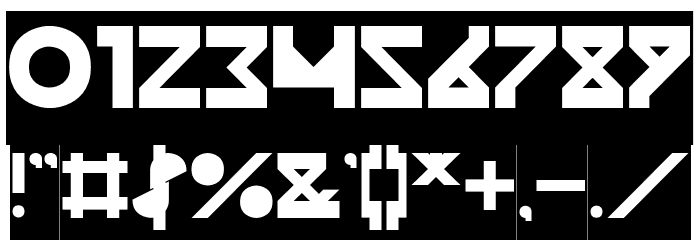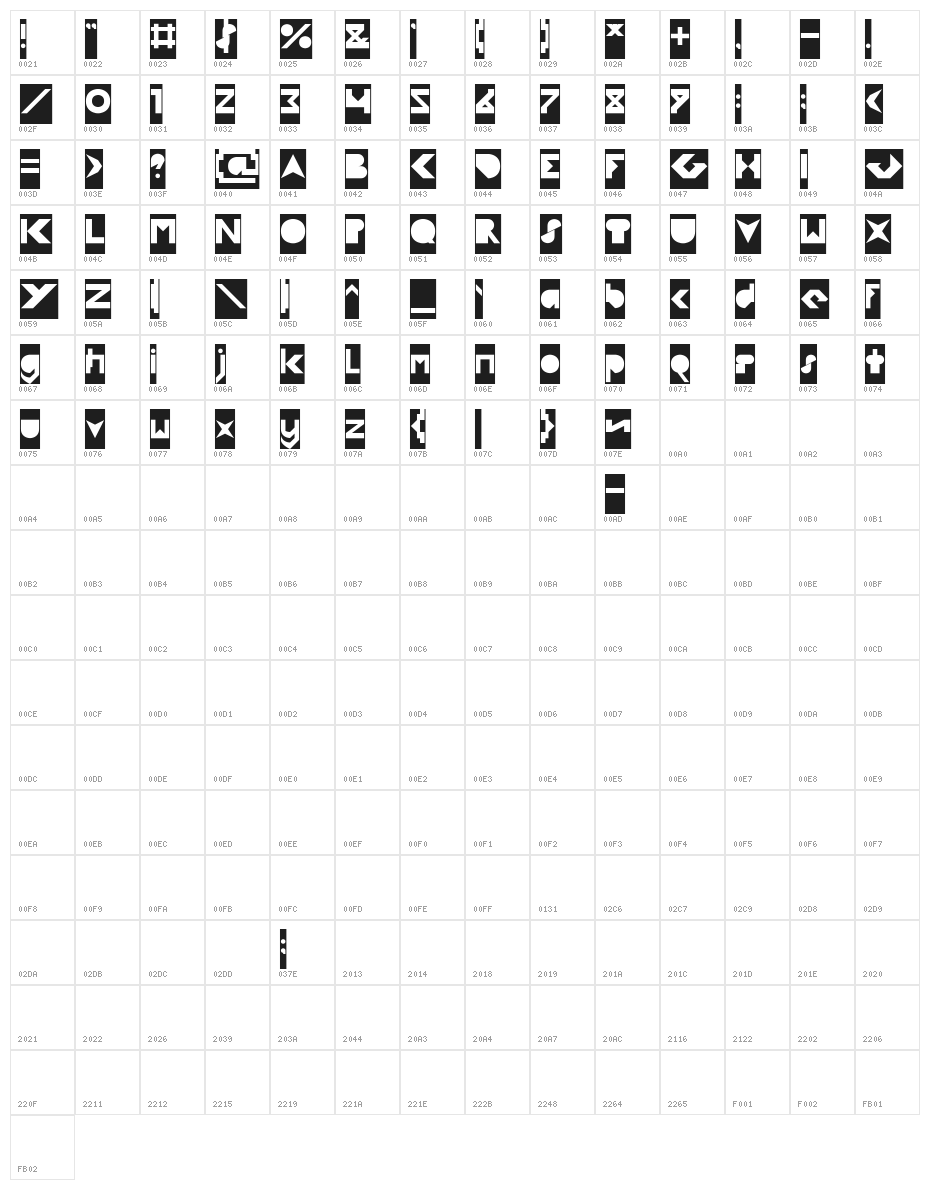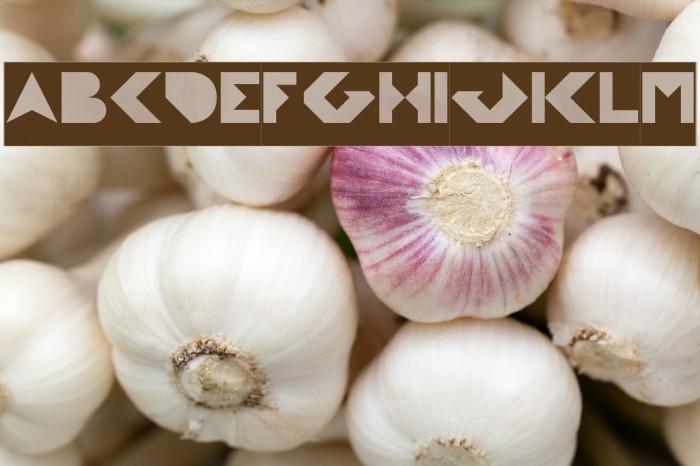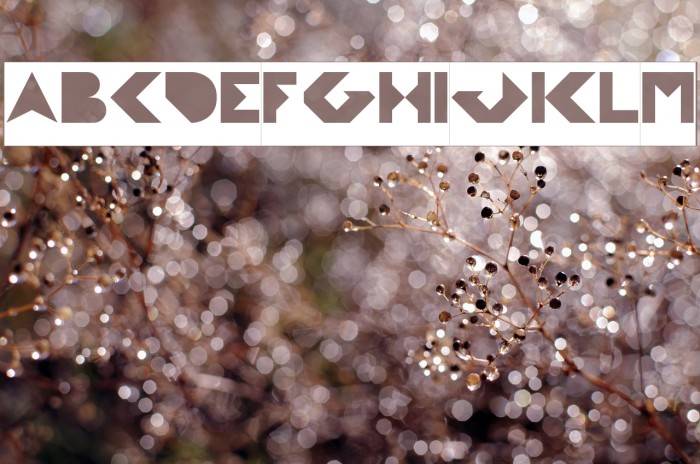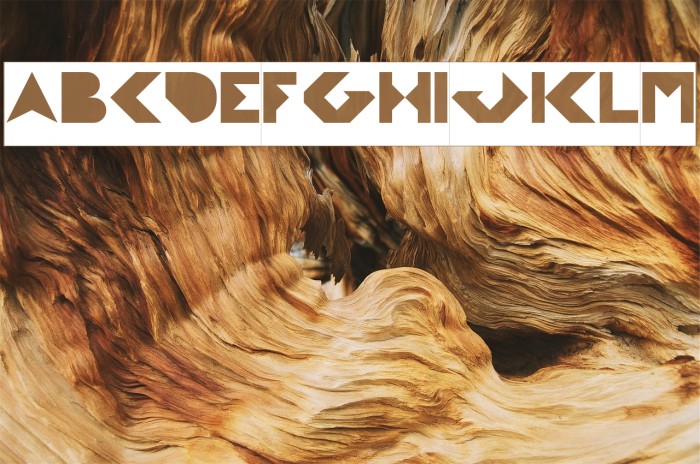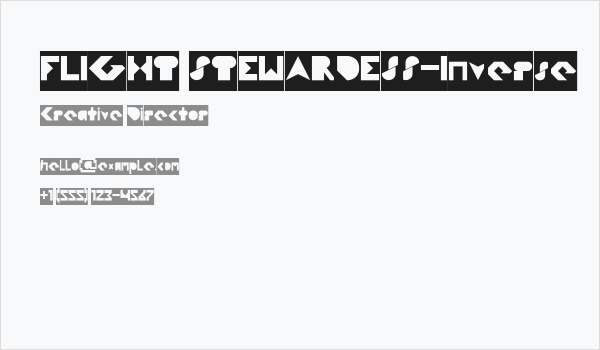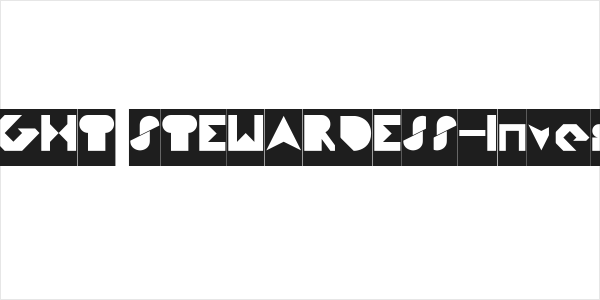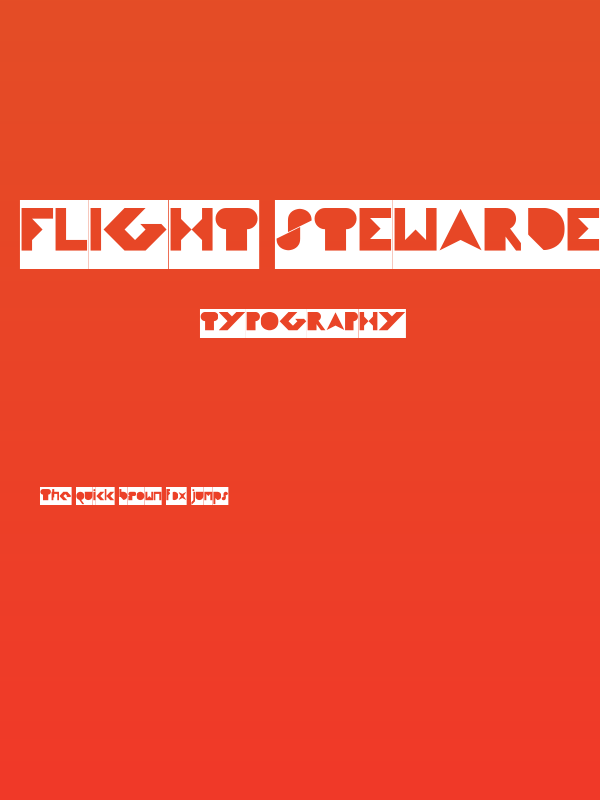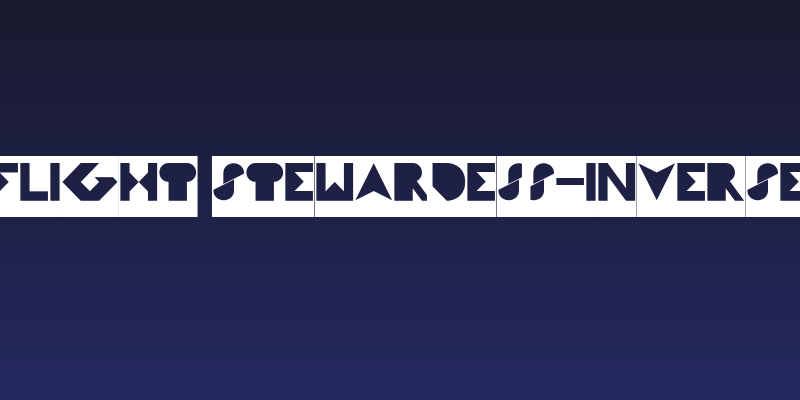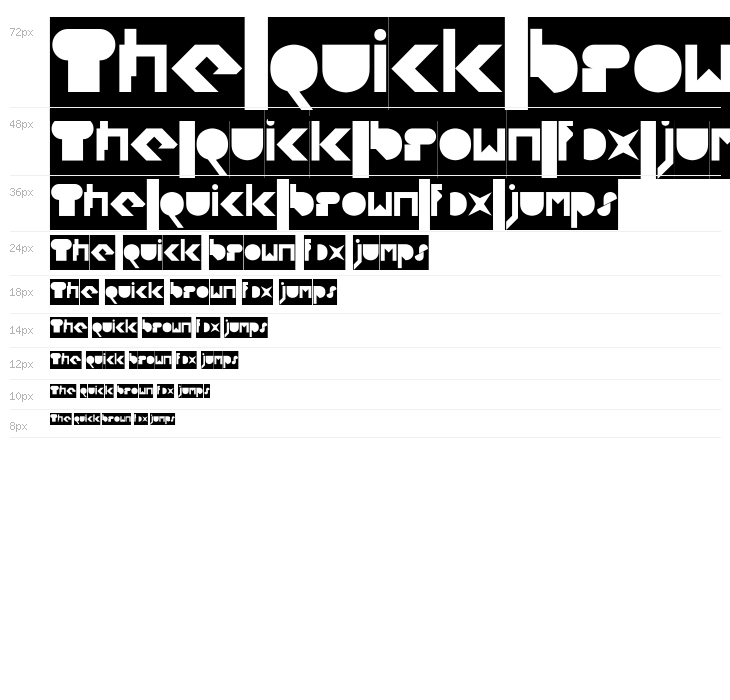
FLIGHT STEWARDESS-Inverse Font
FLIGHT STEWARDESS-Inverse Description
This font features a bold and geometric design with sharp angles and a futuristic aesthetic. The uppercase letters are distinct with a strong presence, while the lowercase letters maintain a consistent style, offering a unique blend of modernity and readability. The numerals are equally bold, ensuring clarity and impact. Special characters are designed to match the overall theme, providing a cohesive look across all elements. The font's angular and edgy style makes it stand out, ideal for projects that require a modern and dynamic appearance.
Proposed ProjectsIdeal for branding, posters, video game graphics, and sci-fi themed projects.